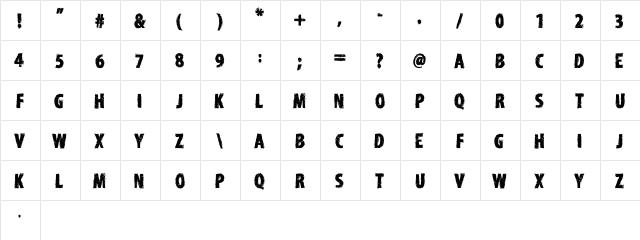
Edirne Normal
Design Context for Edirne Typeface
Edirne is a composed and adaptable typeface that performs quietly and consistently across a wide range of design contexts.